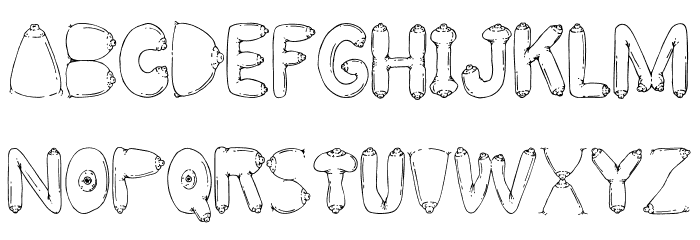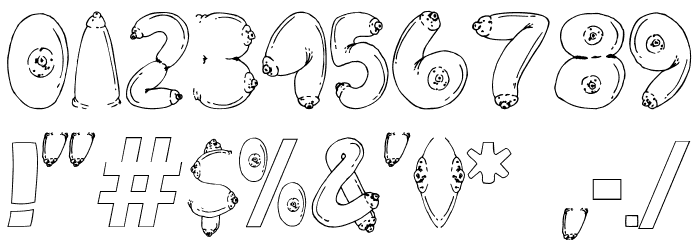
BIG BREAST FONT Font
This font features a playful and humorous design, incorporating elements that mimic a cartoonish, exaggerated style. Each character is crafted with a unique, rounded form that adds a whimsical touch. The font is highly decorative, making it stand out with its bold and distinctive appearance. The characters are consistent in their playful theme, with a focus on creating a lighthearted and fun visual impact. This font is not suitable for formal or professional use but excels in creative and entertaining contexts.
A playful and humorous decorative font with a cartoonish style.
- Proposed Projects: Ideal for comic books, playful posters, children's party invitations, and novelty merchandise.
- Overall Style: Humorous, Playful, Cartoonish
- Use Case: Logos, Posters, Merchandise